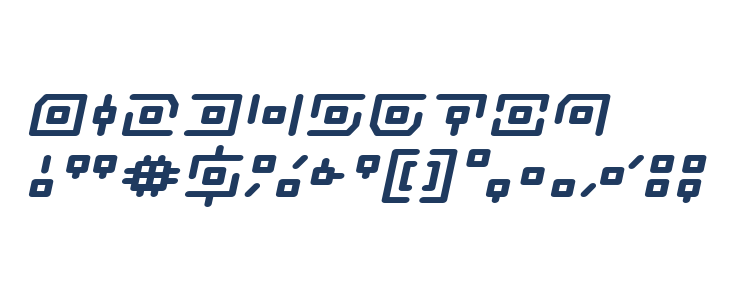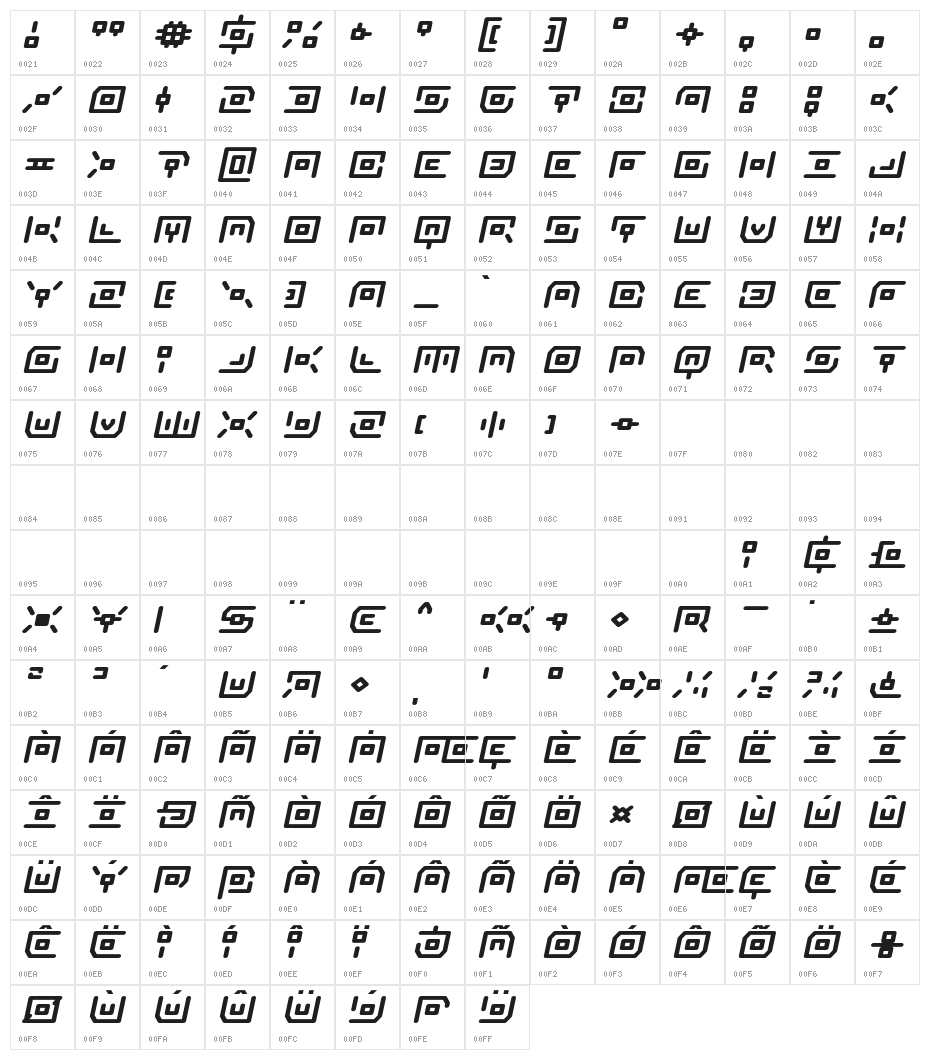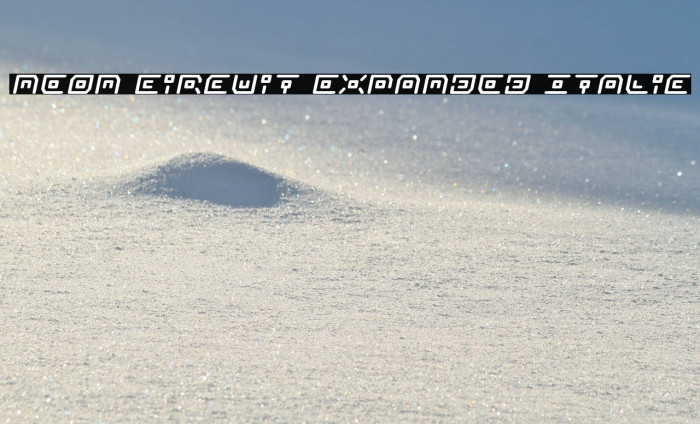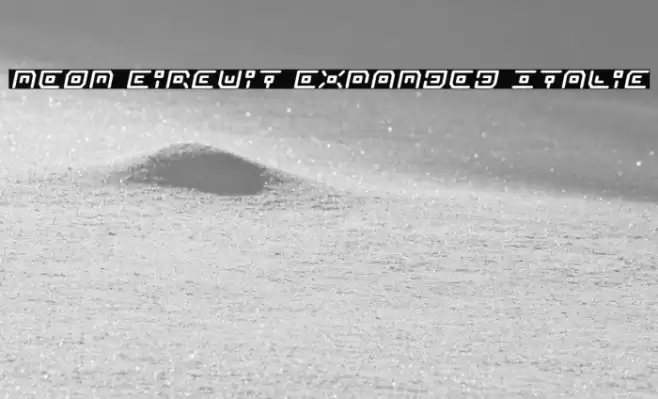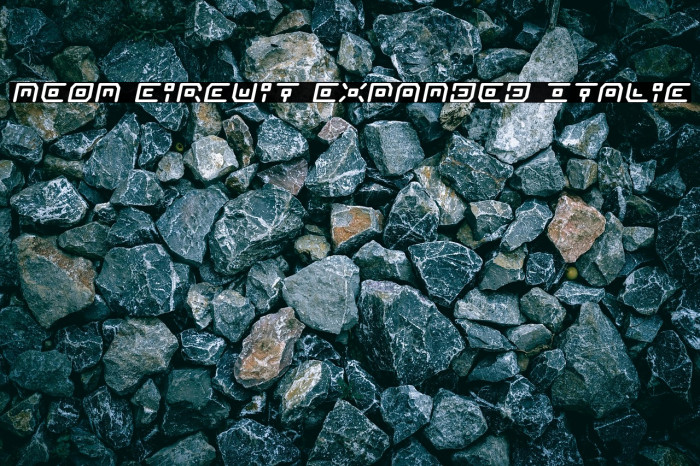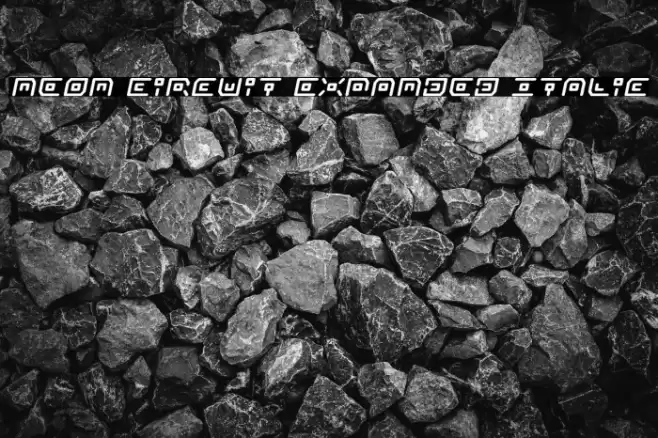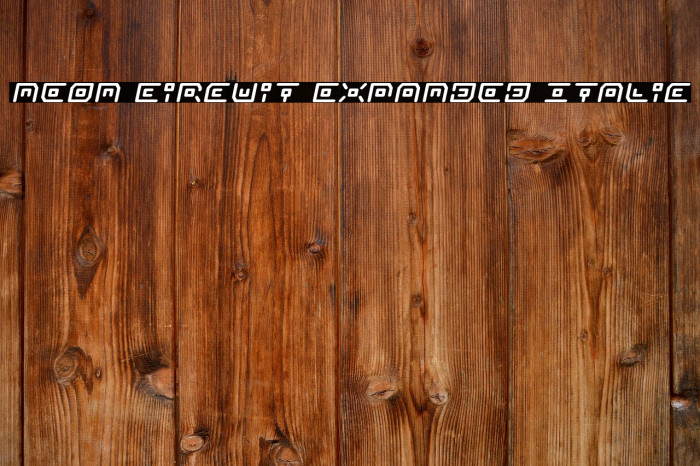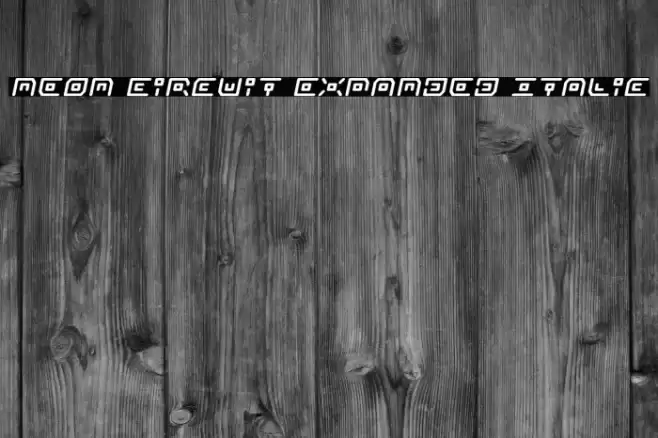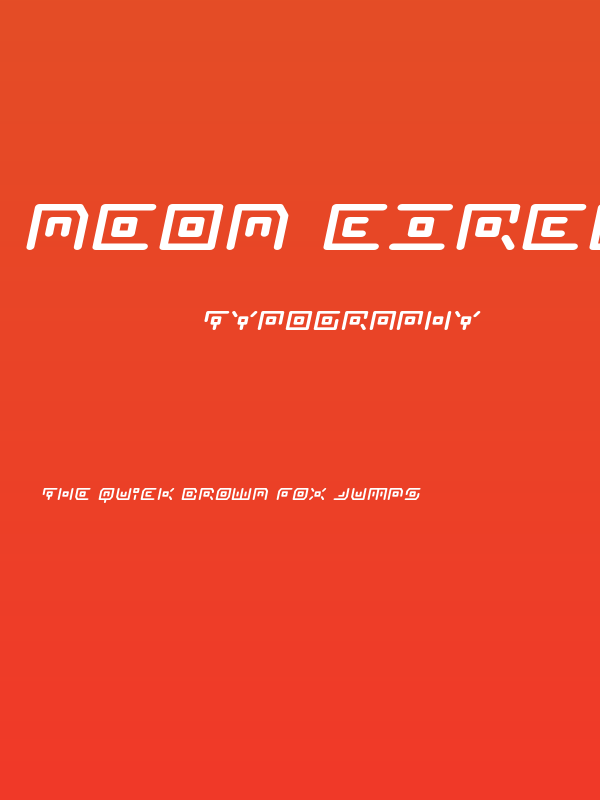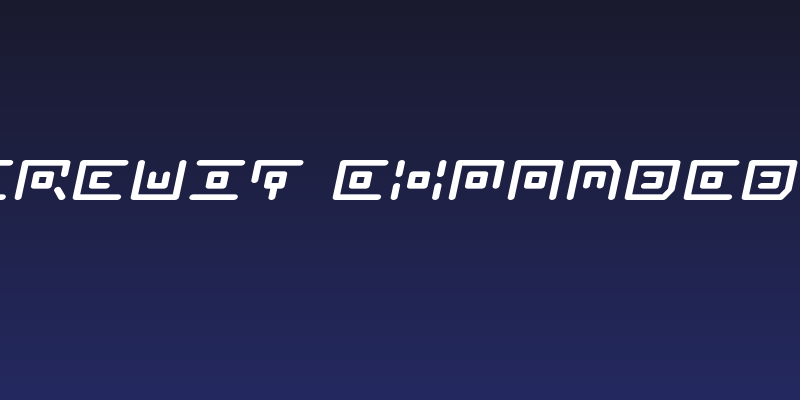
Neon Circuit Expanded Italic Font
Neon Circuit Expanded Italic Description
This font features a futuristic and digital aesthetic, reminiscent of neon lights and circuit board patterns. The characters are composed of geometric shapes with sharp angles and rounded edges, giving them a tech-inspired look. The expanded width and italic slant add a dynamic and modern feel. The font's design is consistent across uppercase, lowercase, numbers, and special characters, maintaining a cohesive style. Its unique appearance makes it suitable for projects that require a high-tech or sci-fi theme.
| Proposed Projects | Ideal for technology-themed posters, sci-fi book covers, video game graphics, and digital art projects. |